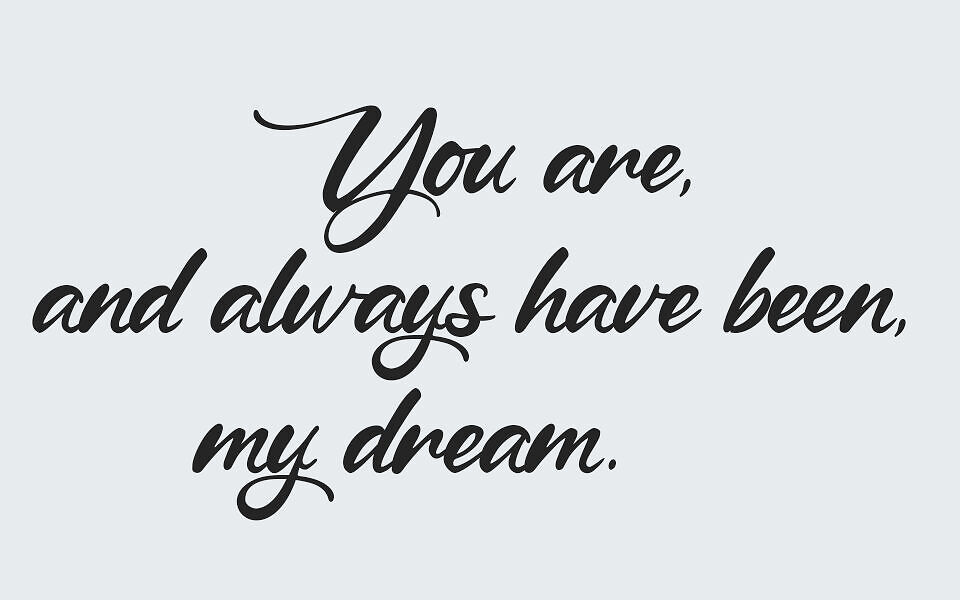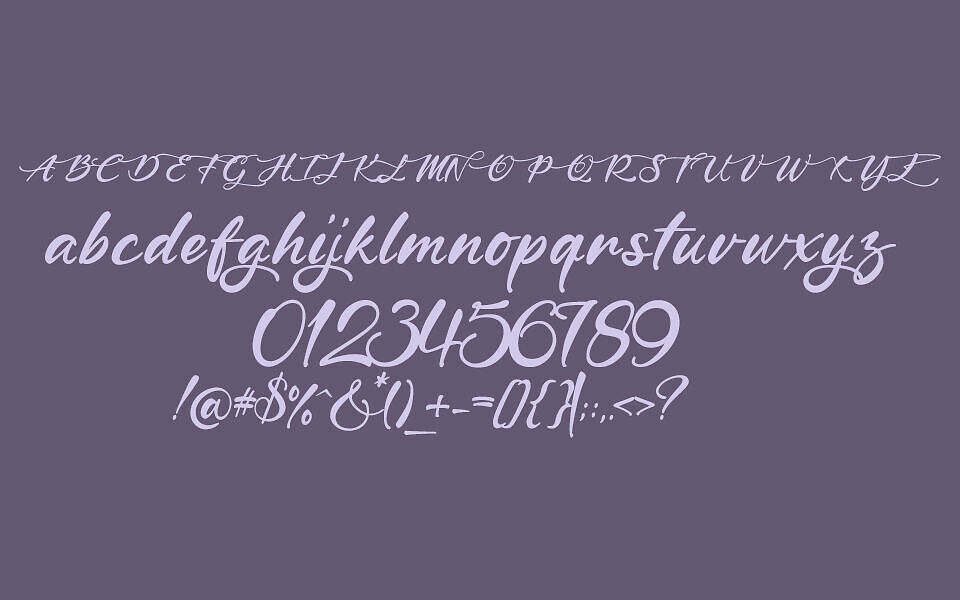
Shine in Valentine, crafted by Agathe M. Joyce (Cataleya Butcher), is a romantic Script font that exudes elegance and charm. Its flowing, cursive letterforms feature delicate swashes and a handwritten aesthetic, making it ideal for projects that call for a touch of love and sophistication.
Perfect for wedding invitations, greeting cards, or branding with a heartfelt vibe, this font captures the essence of romance with its smooth, graceful strokes. Shine in Valentine adds a whimsical, intimate feel to any design, enchanting users with its timeless, affectionate style.